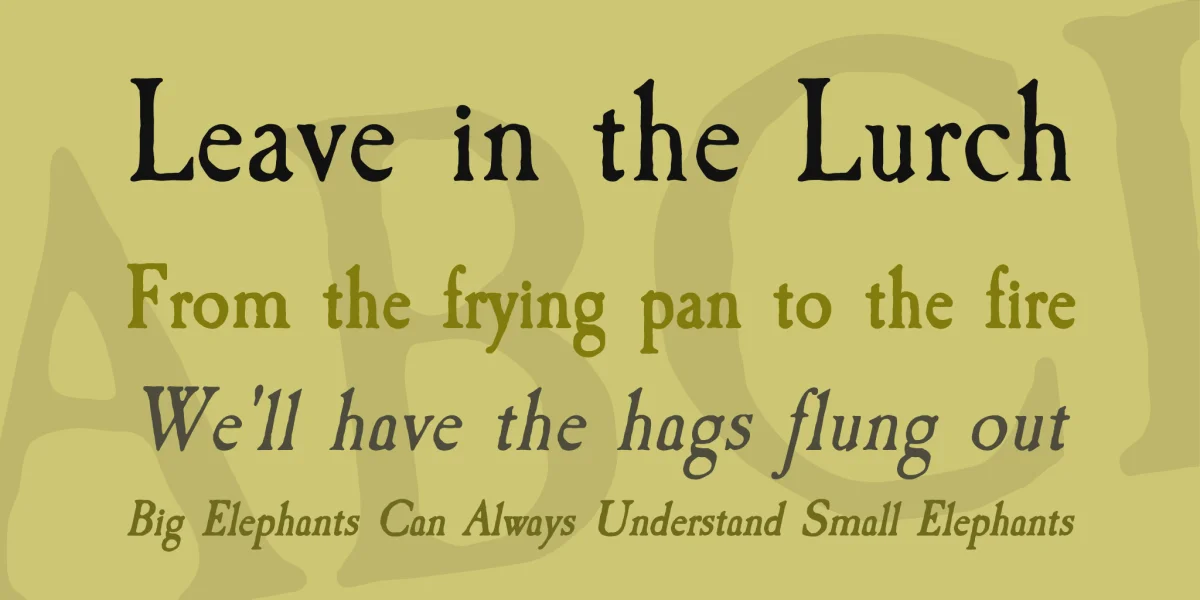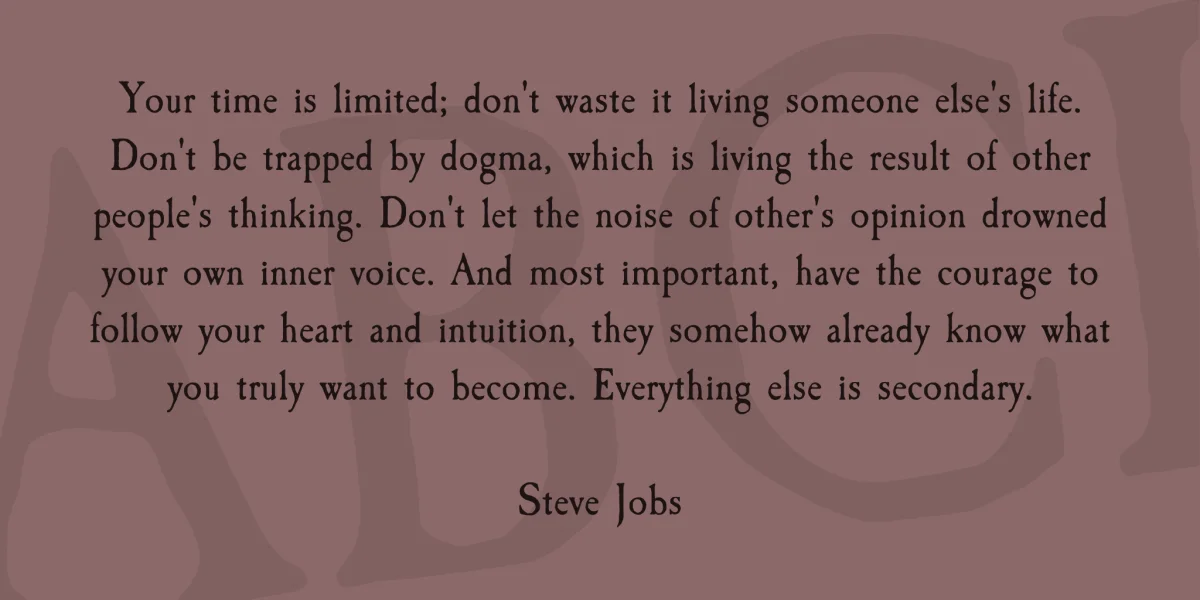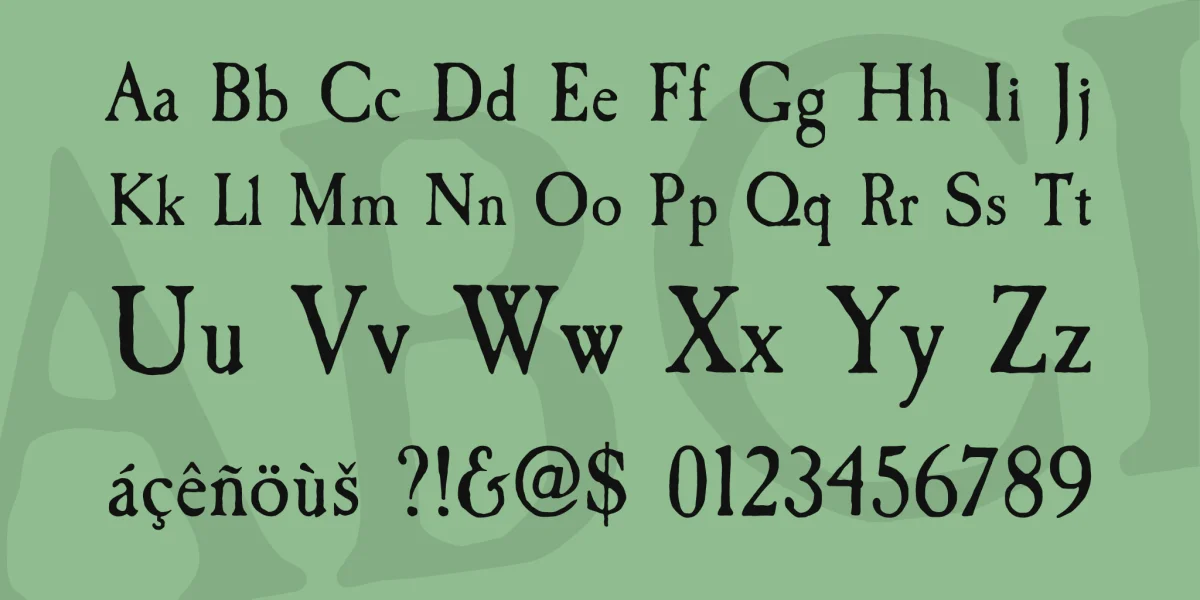
Caslon Antique is a decorative American typeface that was designed in 1894 by Berne Nadall. It was originally called "Fifteenth Century", but was renamed "Caslon Antique" by Nadall's foundry, Barnhart Bros. & Spindler, in the mid-1920s.
The design of the typeface is meant to evoke the Colonial era. Early printers would reuse metal type over and over again, and the faces would become chipped and damaged from use. Caslon Antique emulates this look.
Despite the name, it is not a member of the Caslon family of typefaces. The renaming is believed to have been a marketing maneuver to boost the popularity of a previously unpopular typeface by associating it with the highly popular Caslon types.
Caslon Antique is popular today when a "old-fashioned" or "gothic" look is desired. It is used by the musical group The Sisters of Mercy on their albums, for the logo of the musical Les Misérables, and for the covers of the books in A Series of Unfortunate Events. It is also frequently used on historical displays. It was used for the previous edition of the Warhammer Fantasy Role-Play, and the 1985 reboot of the TV series The Twilight Zone. Most recently, it has been used on promotional material for the smash musical Monty Python's Spamalot on Broadway, the West End, and its tour of the United States. British 80's band The The also used the font in several of their music videos, usually displaying several lyrics from the song in the opening scenes. It used on the cover of Regina Spektor's album, Begin to Hope.
An italic variant of the font is also available. In addition to versions available under the traditional name, Corel produces its own version of the font under the name "Casablanca Antique."